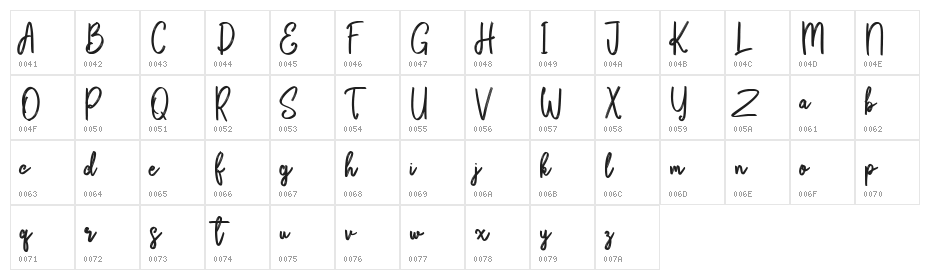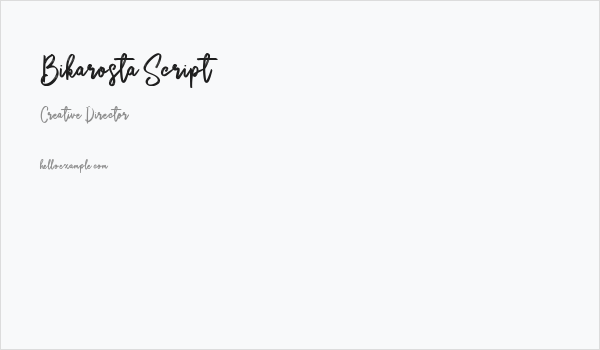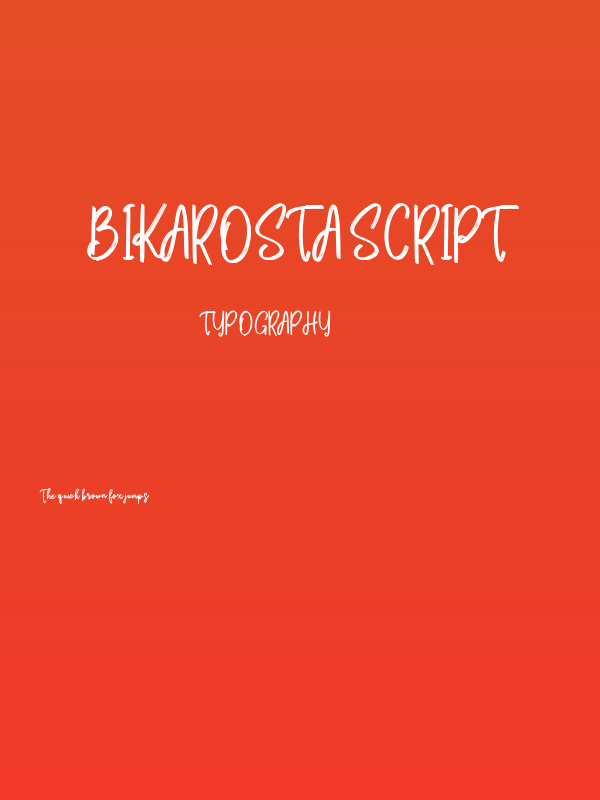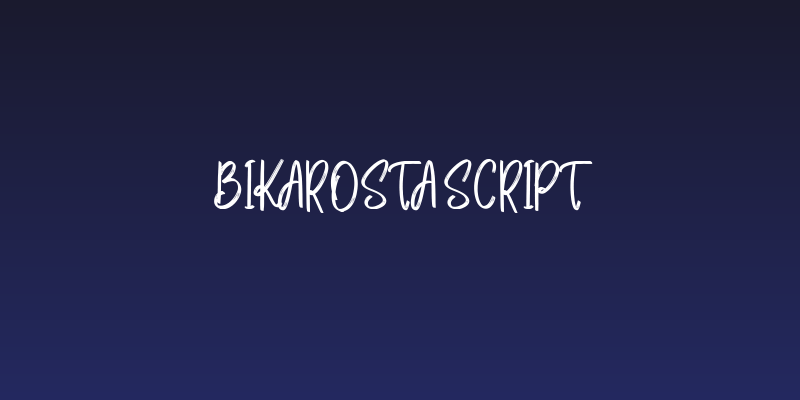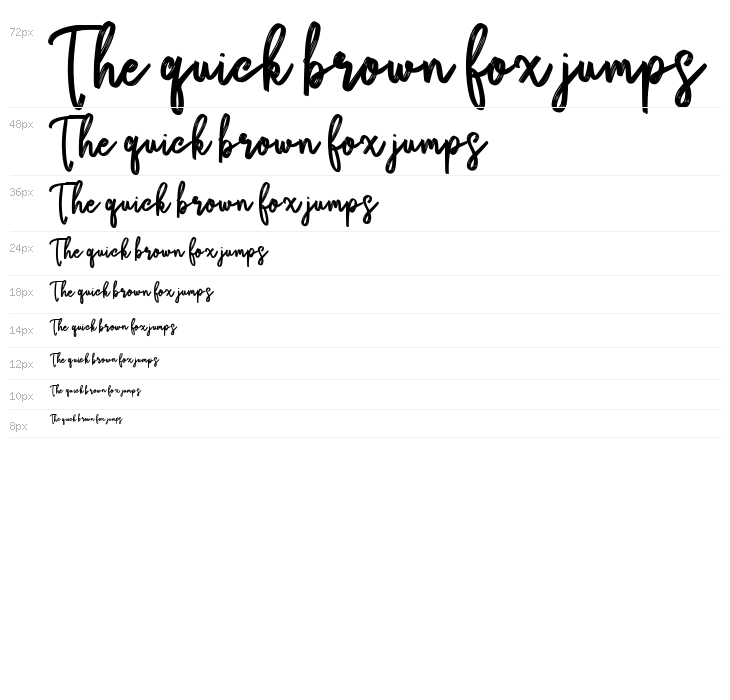
Bikarosta Script Font
Bikarosta Script Description
This script font features a lively and dynamic style, characterized by its fluid, handwritten appearance. The uppercase letters are tall and slightly narrow, with a playful loop and curl in certain characters, adding a whimsical touch. The lowercase letters maintain a consistent flow, with smooth connections between strokes, enhancing its cursive nature. The font exhibits a moderate contrast between thick and thin strokes, giving it a balanced and harmonious look. Its overall design is both elegant and casual, making it suitable for various creative applications.
| Proposed Projects | Ideal for wedding invitations, greeting cards, branding projects, and social media graphics. |